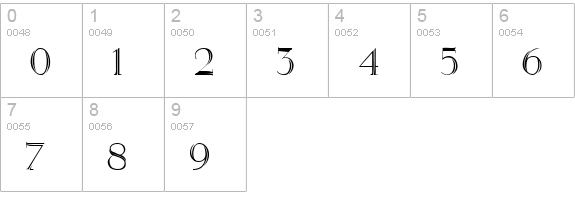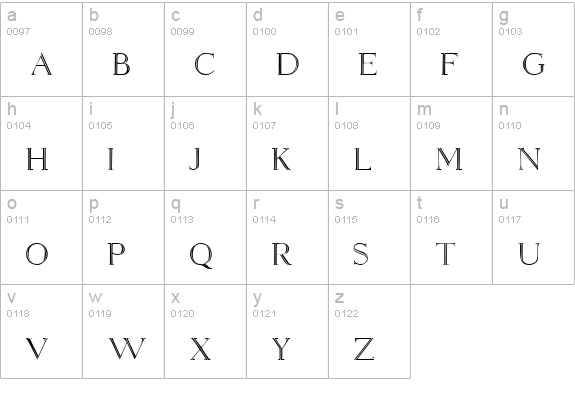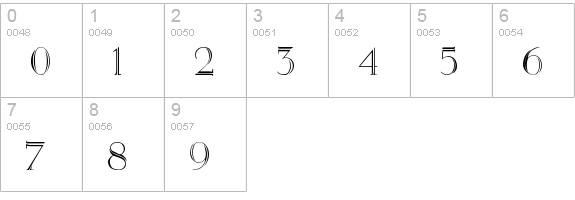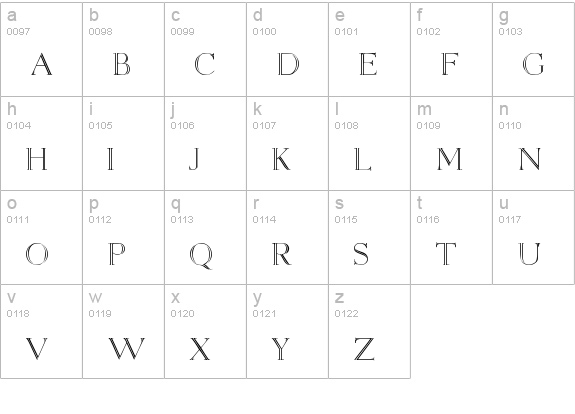
Euboea Font Details
Euboea font is a stunning and elegant typeface that exudes sophistication and modernity. With its sleek lines and stylish curves, this font is perfect for a wide range of design projects, from branding to advertising to web design. Euboea font is versatile and eye-catching, making it a great choice for both headlines and body text. What makes Euboea font even more appealing is that it is available for free download at FontsMarket.com. This means that you can easily access this beautiful font and use it in your projects without any cost. Whether you are a professional designer or a hobbyist, Euboea font is a fantastic addition to your font library. Download it today and elevate your designs with this exquisite typeface.